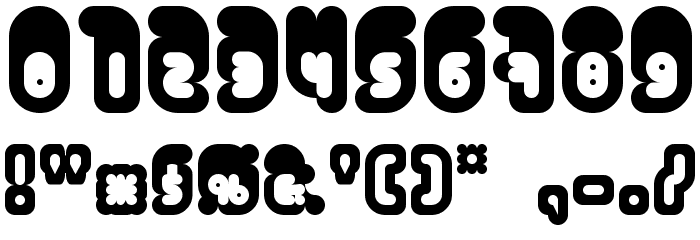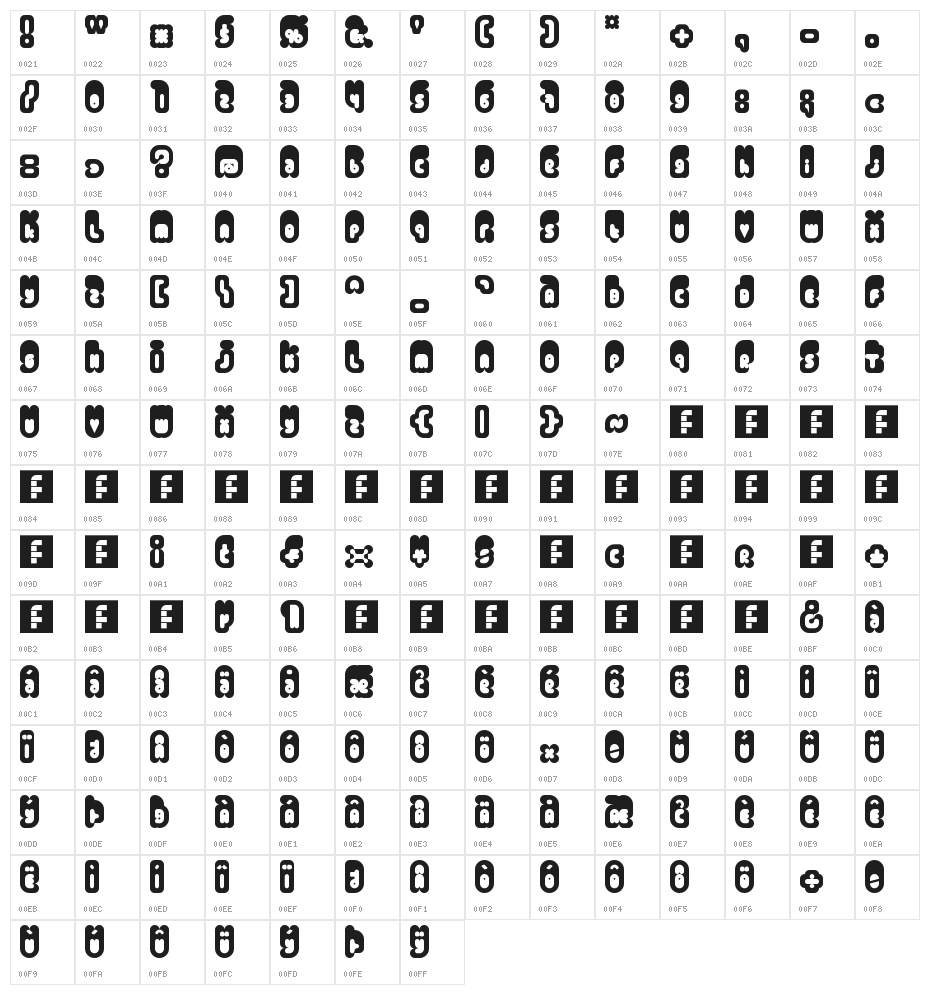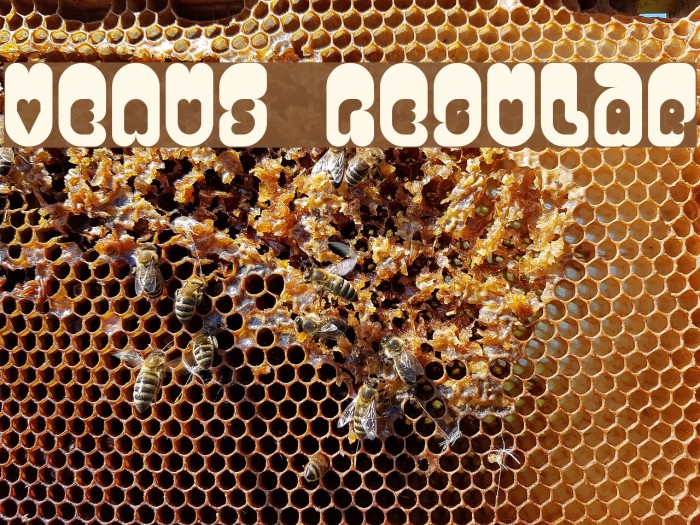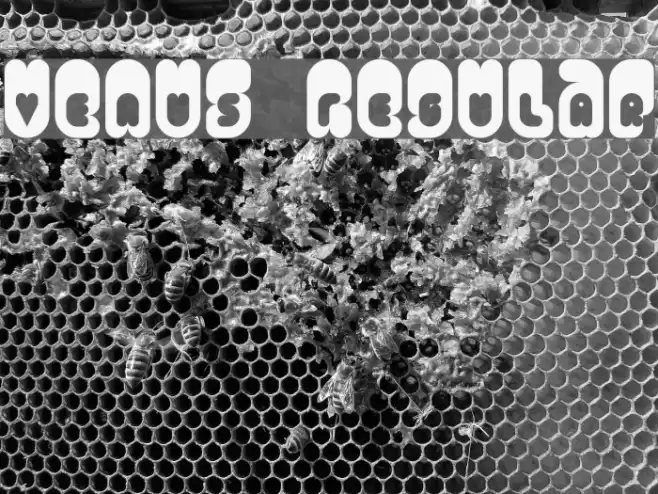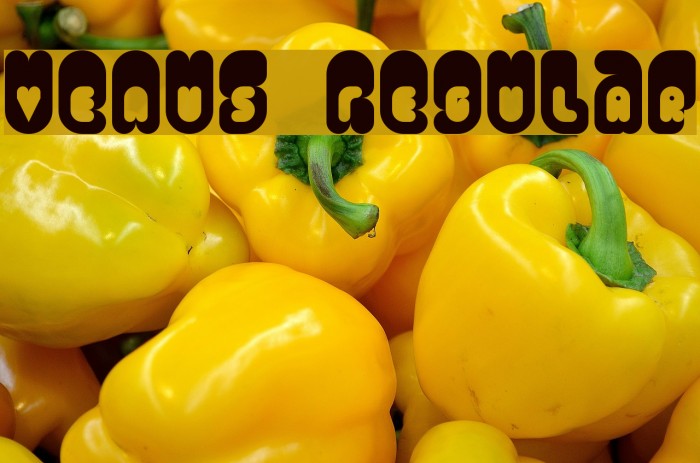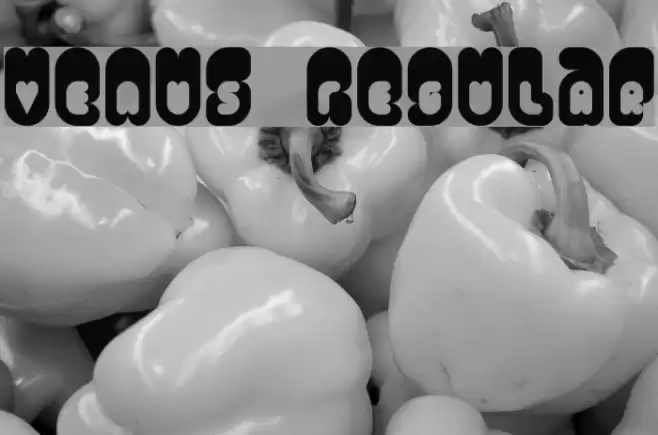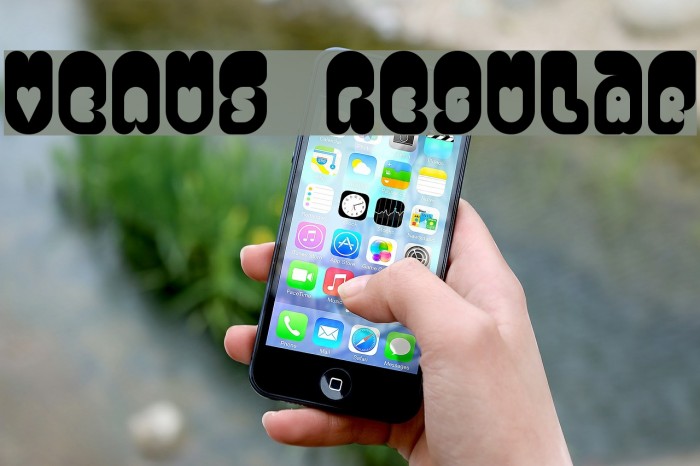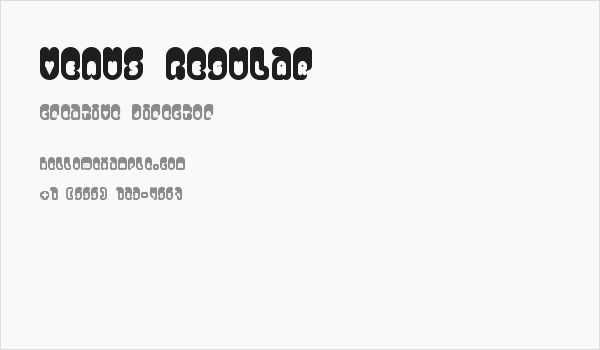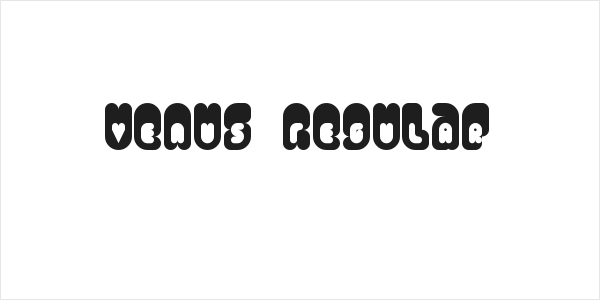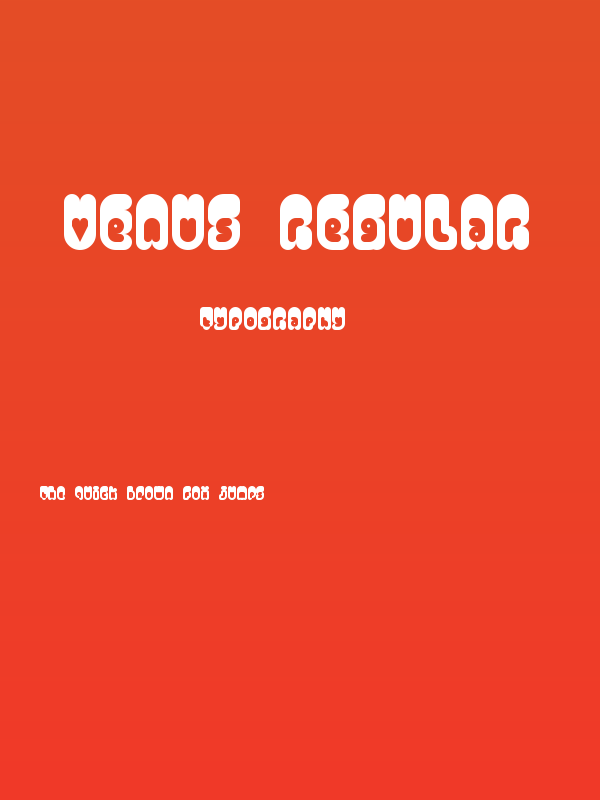
Venus Regular Font
Venus Regular Description
This font features a bold and playful design, characterized by its thick, rounded shapes and a bubbly appearance. Each character is crafted with a consistent stroke weight, giving it a uniform and cohesive look. The letters are slightly condensed, enhancing the compact feel of the typeface. Its unique style is further emphasized by the playful curves and rounded edges, making it stand out as a decorative choice. The font's design is both modern and whimsical, suitable for projects that require a fun and engaging aesthetic.